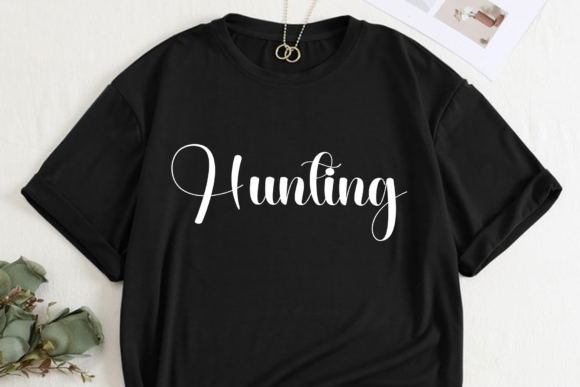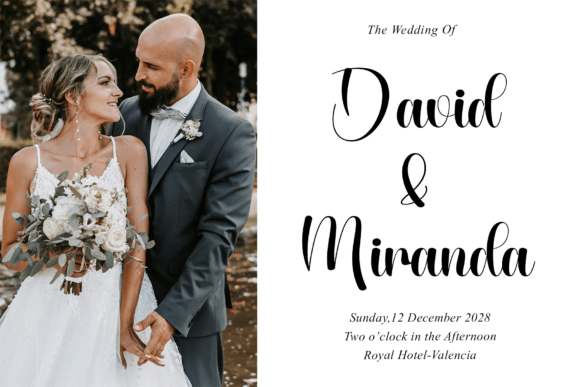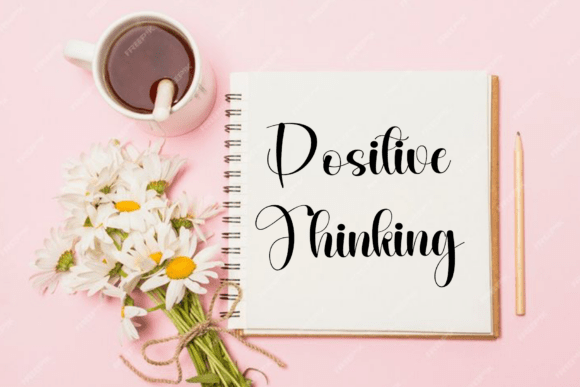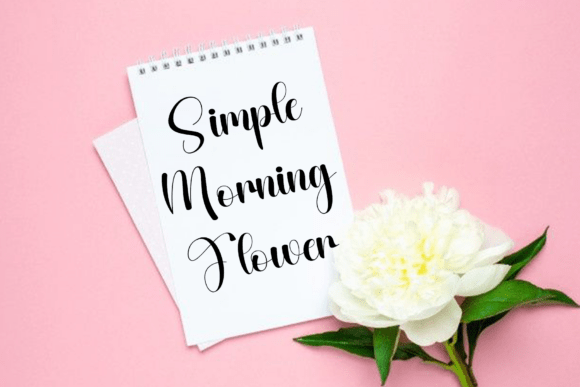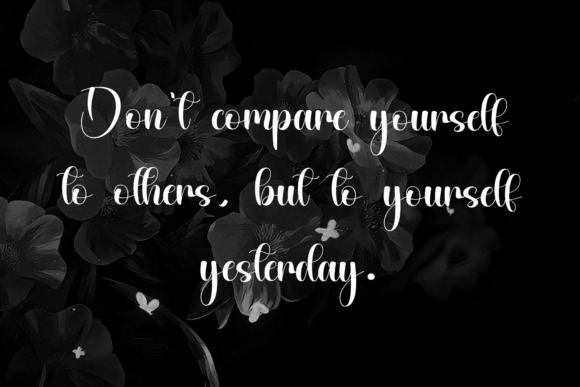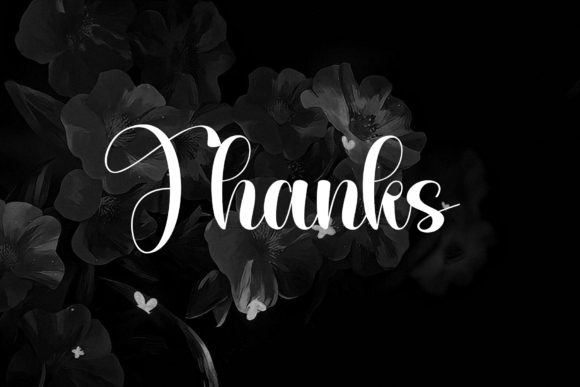
Unleash the Mystery: Elevate Your Designs with Darknight Font
Are you ready to add a touch of sophistication and mystery to your creative projects? Look no further than Darknight, a stunning handwritten script font that’s taking the design world by storm. With its elegant “new style” aesthetic, high-contrast strokes, and fluid ligatures, Darknight is the perfect choice for designers and crafters looking to create luxurious, cinematic, and dramatic designs.
The Essence of Modern Dark Romance
Darknight font is characterized by its unique blend of modern sophistication and classic romance. Its high-contrast strokes and fluid, rhythmic ligatures evoke the essence of modern dark romance, making it an ideal choice for designers who want to create designs that are both elegant and mysterious. Whether you’re working on a luxury branding project, a cinematic book cover, or a dramatic social media header, Darknight font is sure to make a statement.
Exceptional Design Features
So, what sets Darknight font apart from other script fonts? Here are just a few of its exceptional design features:
- Graceful Ascenders: Darknight’s ascenders are long and elegant, adding a touch of sophistication to any design.
- Elongated Terminals: The font’s elongated terminals create a sense of fluidity and movement, making it perfect for designs that require a sense of drama and flair.
- High-Contrast Strokes: Darknight’s high-contrast strokes add depth and dimension to any design, creating a sense of luxury and refinement.
- Fluid Ligatures: The font’s fluid ligatures create a sense of movement and fluidity, making it perfect for designs that require a sense of rhythm and flow.
Perfect for Luxury Branding and Beyond
Darknight font is the perfect choice for designers and crafters working on luxury branding projects, including:
- Luxury Branding: Darknight’s sophisticated aesthetic makes it perfect for luxury brands looking to create a high-end image.
- Cinematic Book Covers: The font’s dramatic and elegant design makes it perfect for book covers that require a sense of mystery and intrigue.
- Dramatic Social Media Headers: Darknight’s fluid and rhythmic design makes it perfect for social media headers that require a sense of drama and flair.
- Upscale Event Invitations: The font’s elegant and sophisticated design makes it perfect for upscale event invitations that require a sense of luxury and refinement.
Bringing a Touch of Mystery and Artisanal Charm
Darknight font brings a touch of mystery and artisanal charm to any design, making it perfect for designers and crafters who want to create unique and eye-catching designs. With its poetic, hand-penned feel, Darknight font is sure to add a touch of sophistication and elegance to any creative composition.
In conclusion, Darknight font is a breathtaking handwritten script font that’s perfect for designers and crafters looking to add a touch of sophistication and mystery to their creative projects. With its elegant “new style” aesthetic, high-contrast strokes, and fluid ligatures, Darknight is the perfect choice for luxury branding, cinematic book covers, dramatic social media headers, and upscale event invitations. So why wait? Download Darknight font today and elevate your designs to new heights!